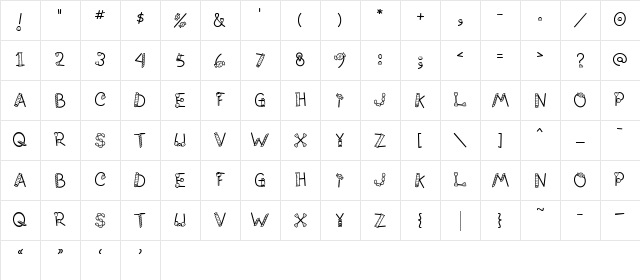
Complete LD Tricky Treats Regular glyph index. Displaying only characters natively supported by LD Tricky Treats Regular font.
LD Tricky Treats is a composed and adaptable typeface that performs quietly and consistently across a wide range of design contexts.